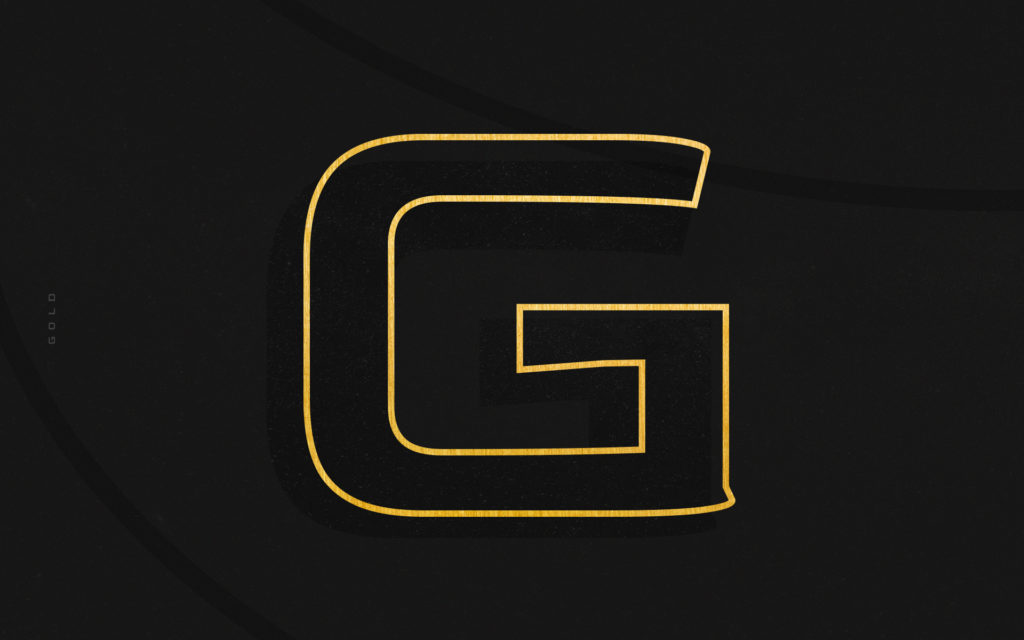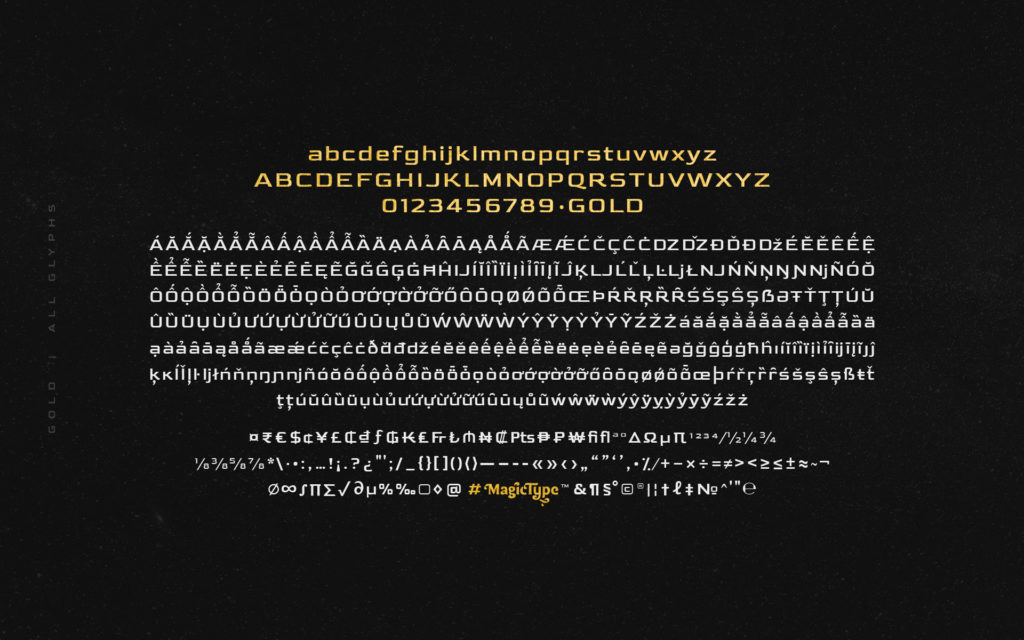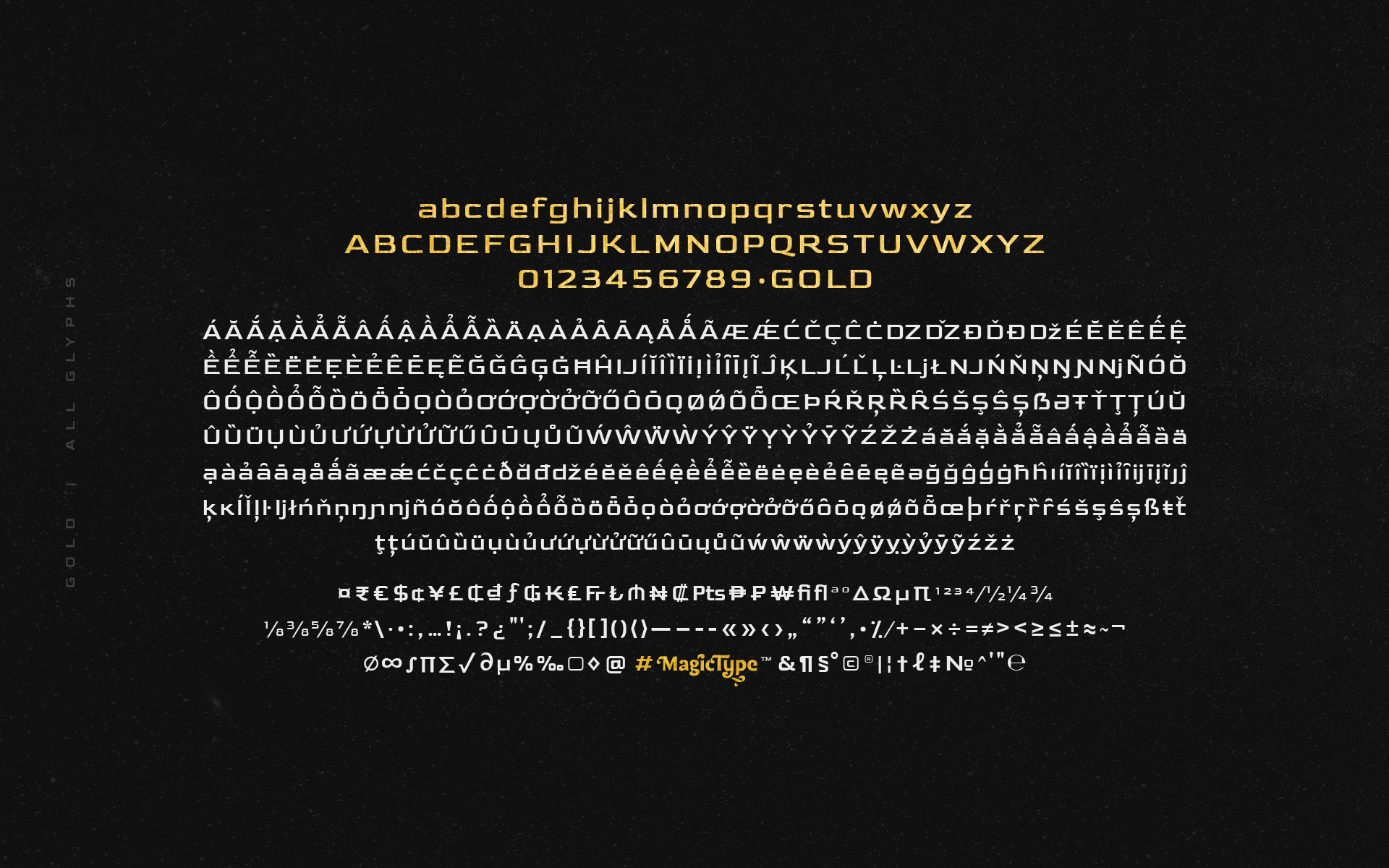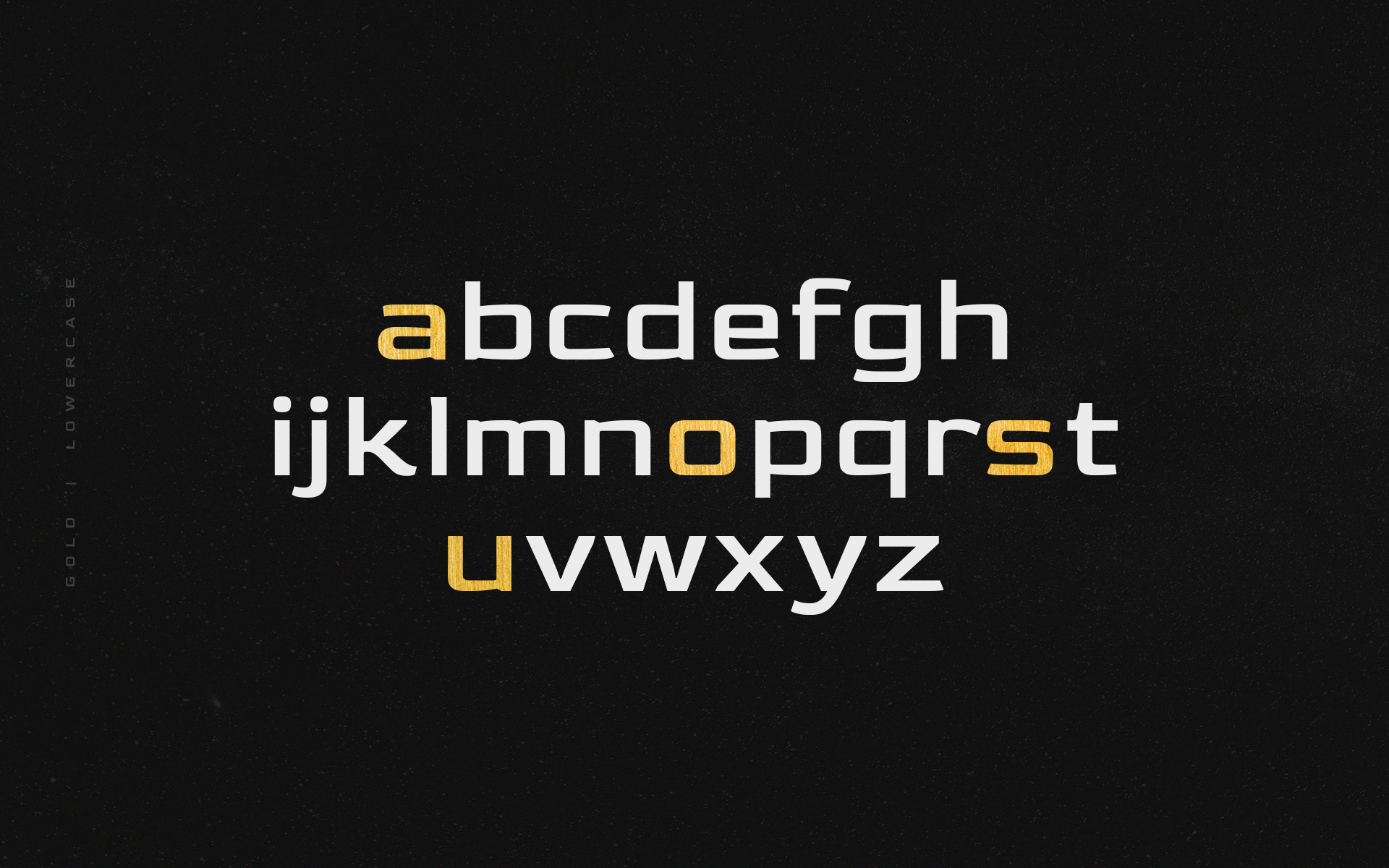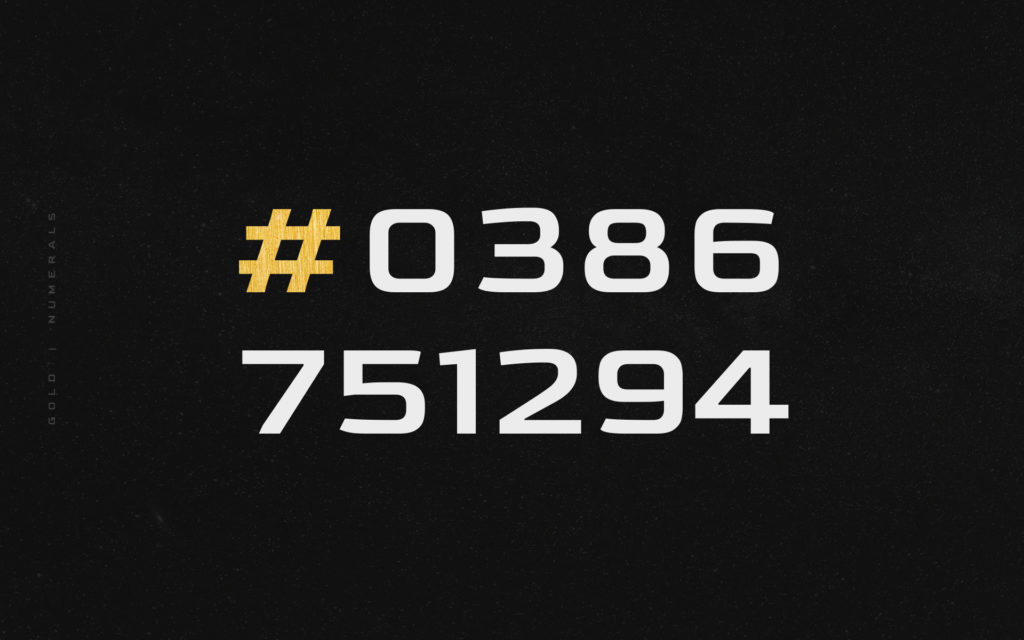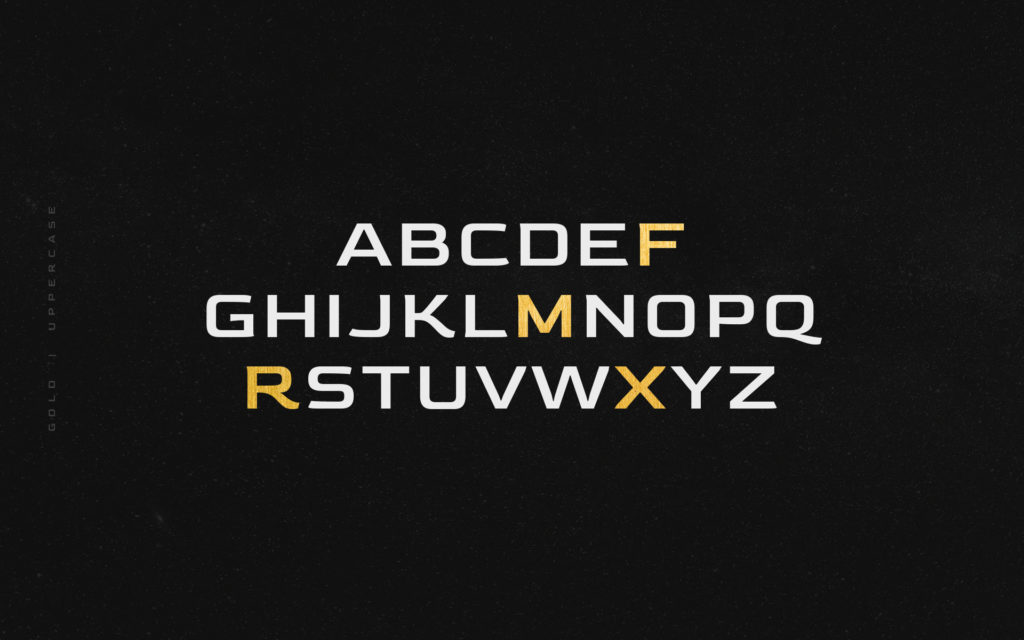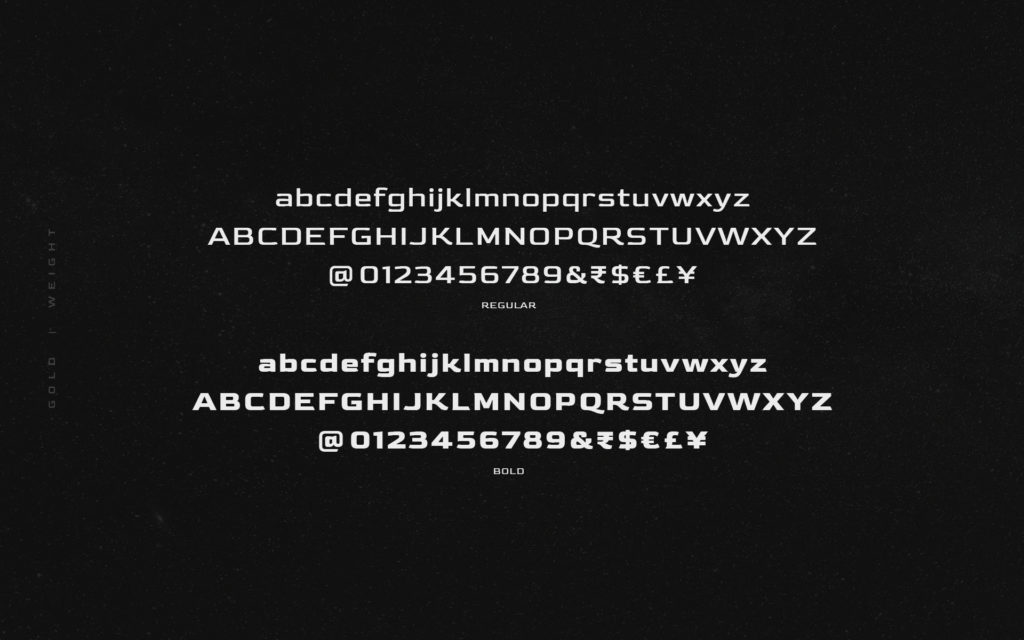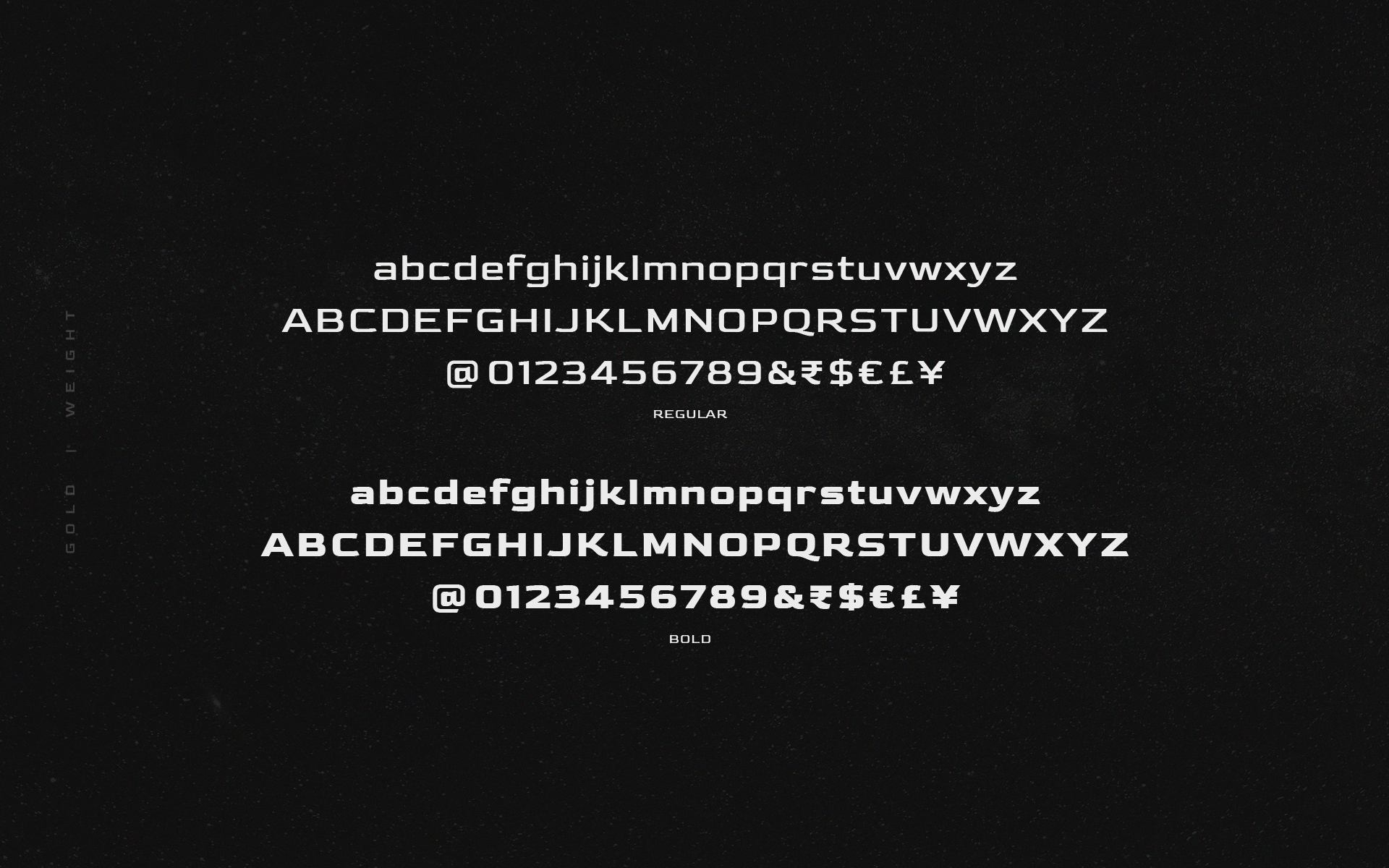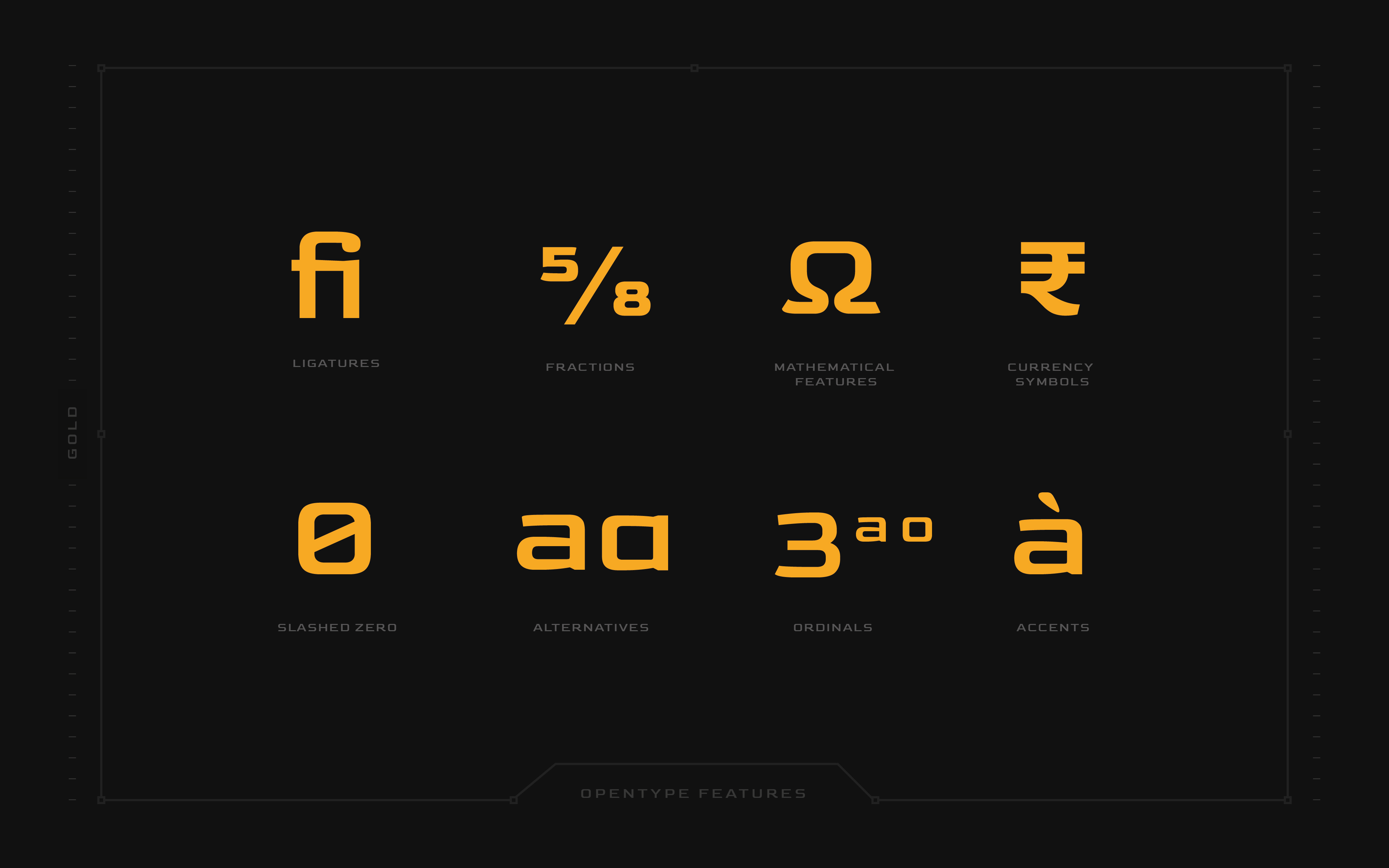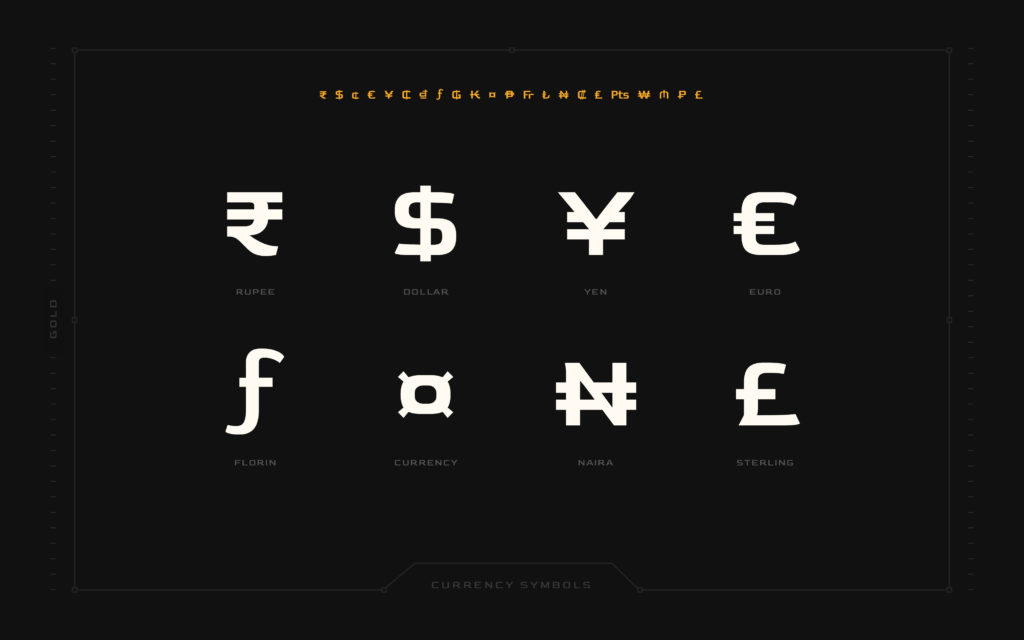
Gold : Latin Display typeface in 3 weights
Designed by Jaikishan Patel
Gold
A day, I found myself melting inside. Melted for long. Really long. I have no words to describe the feeling. Like fading away. It was immensely painful until I saw that sheen and shine. Like rising sun. Like gold. I stood gazing at myself to see if I was the same person. I was smiling in pain, leaving behind everything that I thought I was made of. Those countless things inside me could never make me smile this way before. Who gave me all the courage to stand that heat? I don't know. What if I had a choice? What if I had a master escape plan? The story would have been totally different.
If only had I chosen not to burn, I would have never seen all that was not Gold. I am more like me than ever before.
Simplicity has gone through all forms of decoration. This is the most dramatic blend of geometry with the evolved organic shapes, featuring simplicity not by having nothing but having Everything.
Gold is a display typeface with over 640+ Latin plus glyphs. Current version of the Gold-2 family includes Regular and Bold font weights.